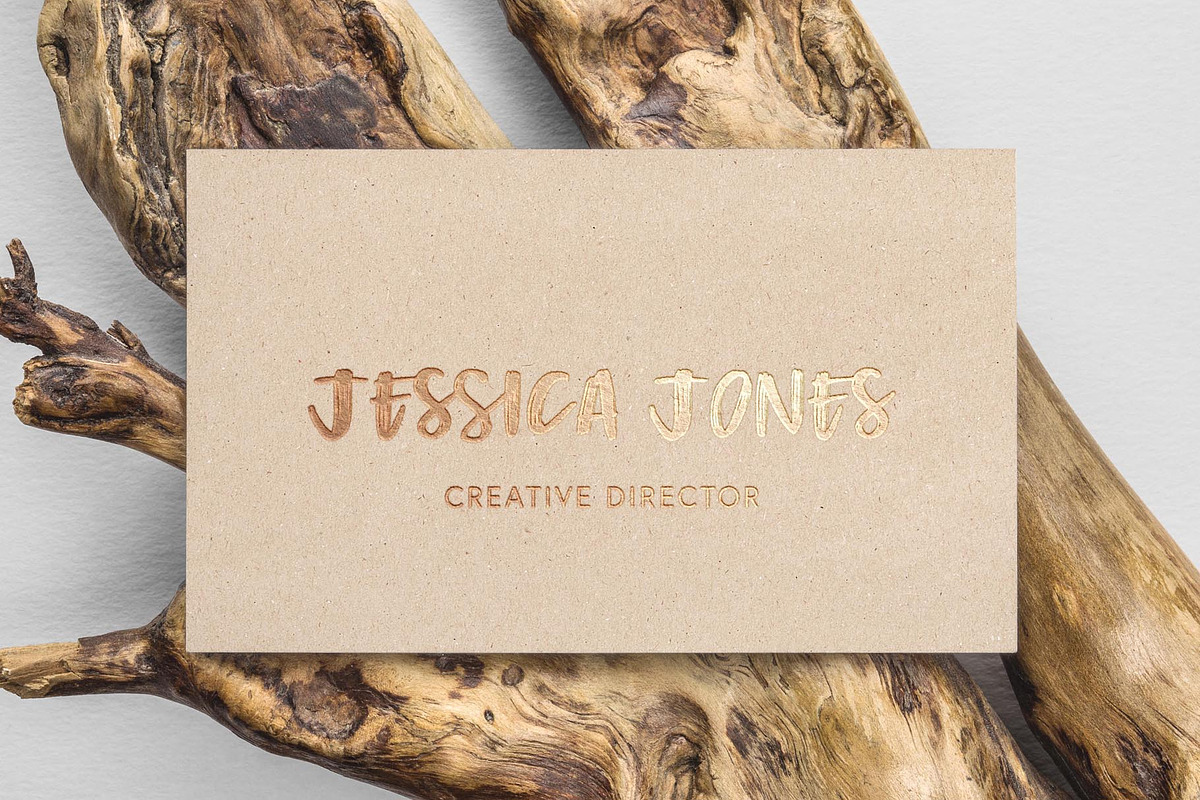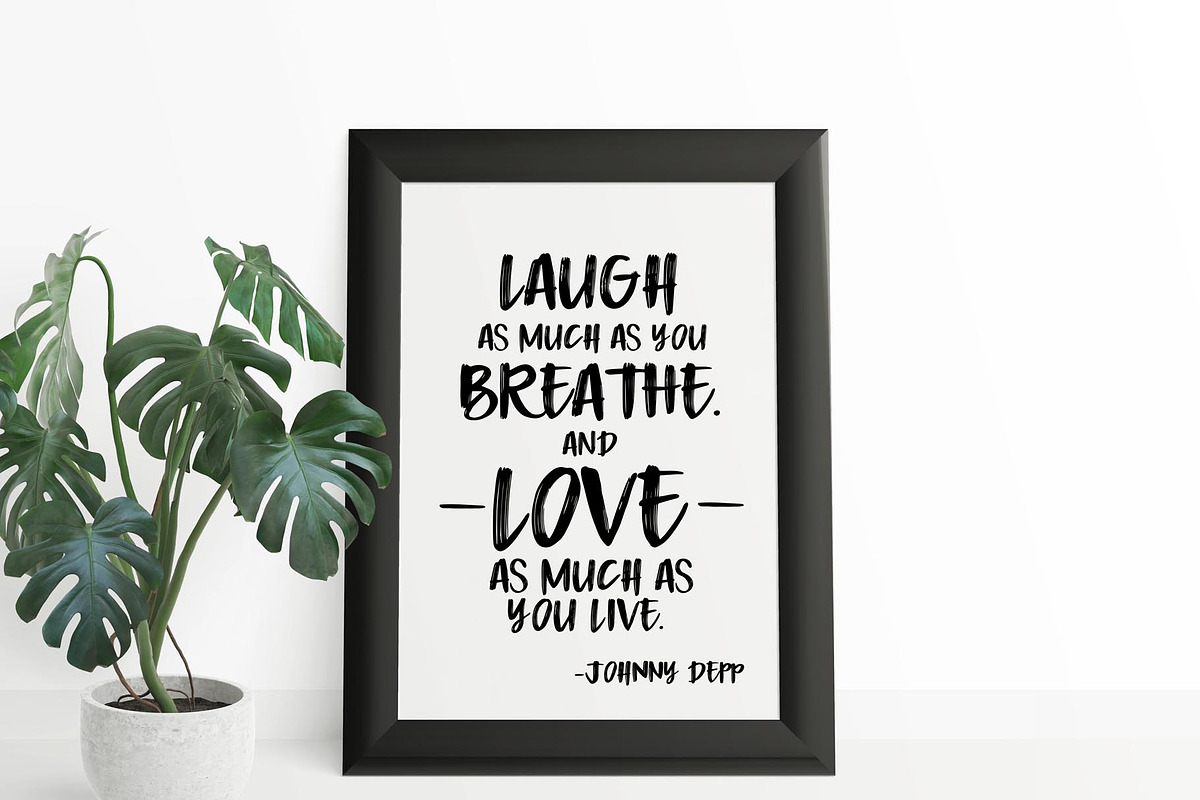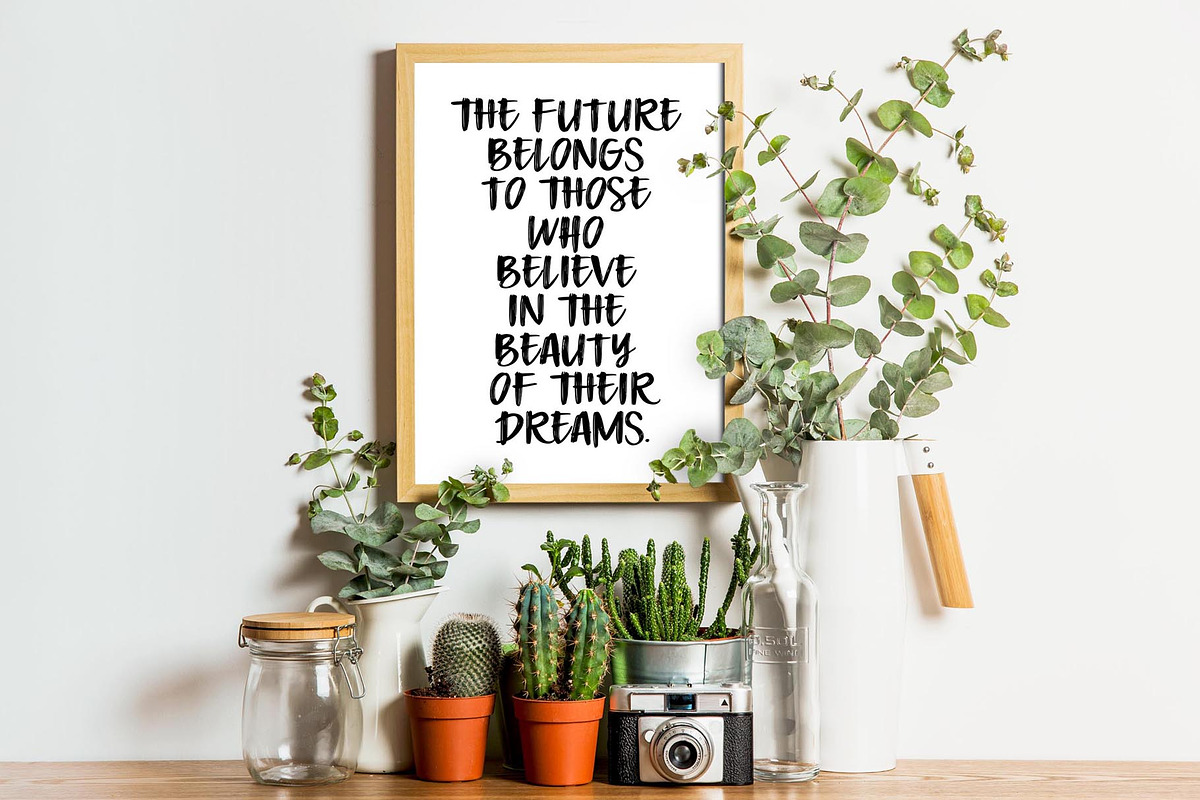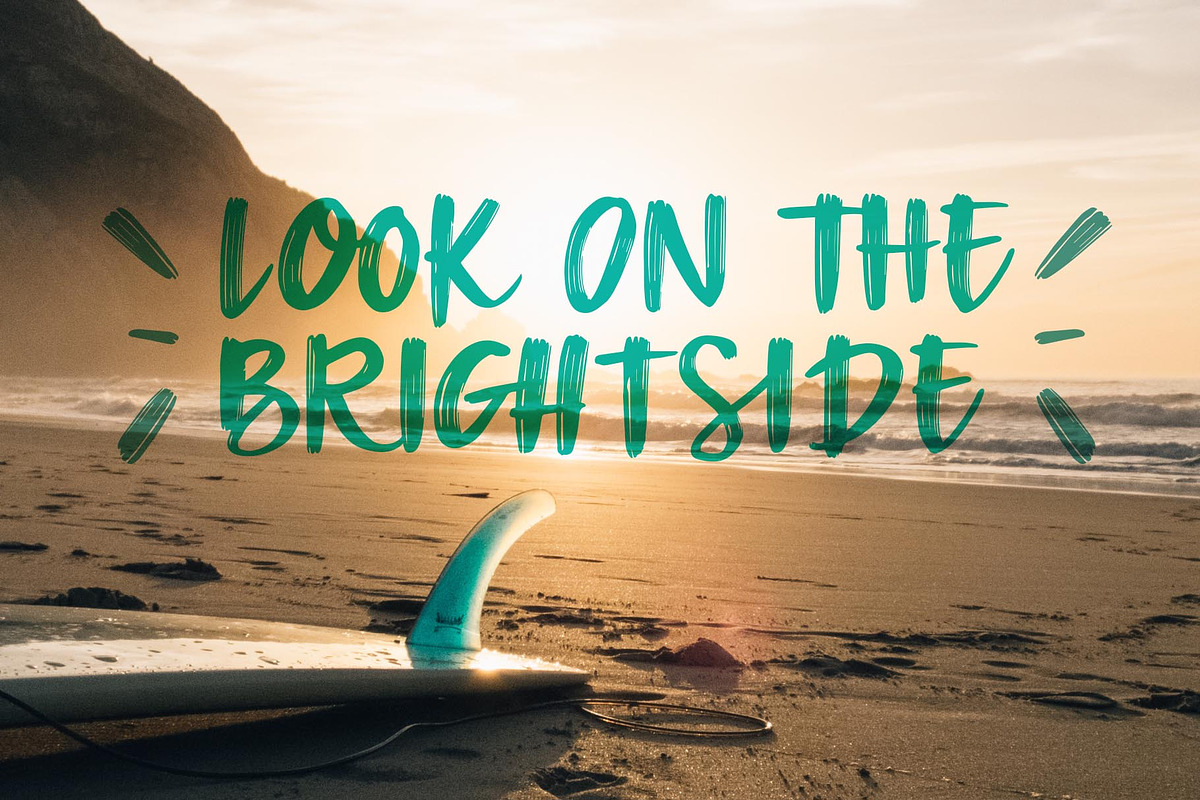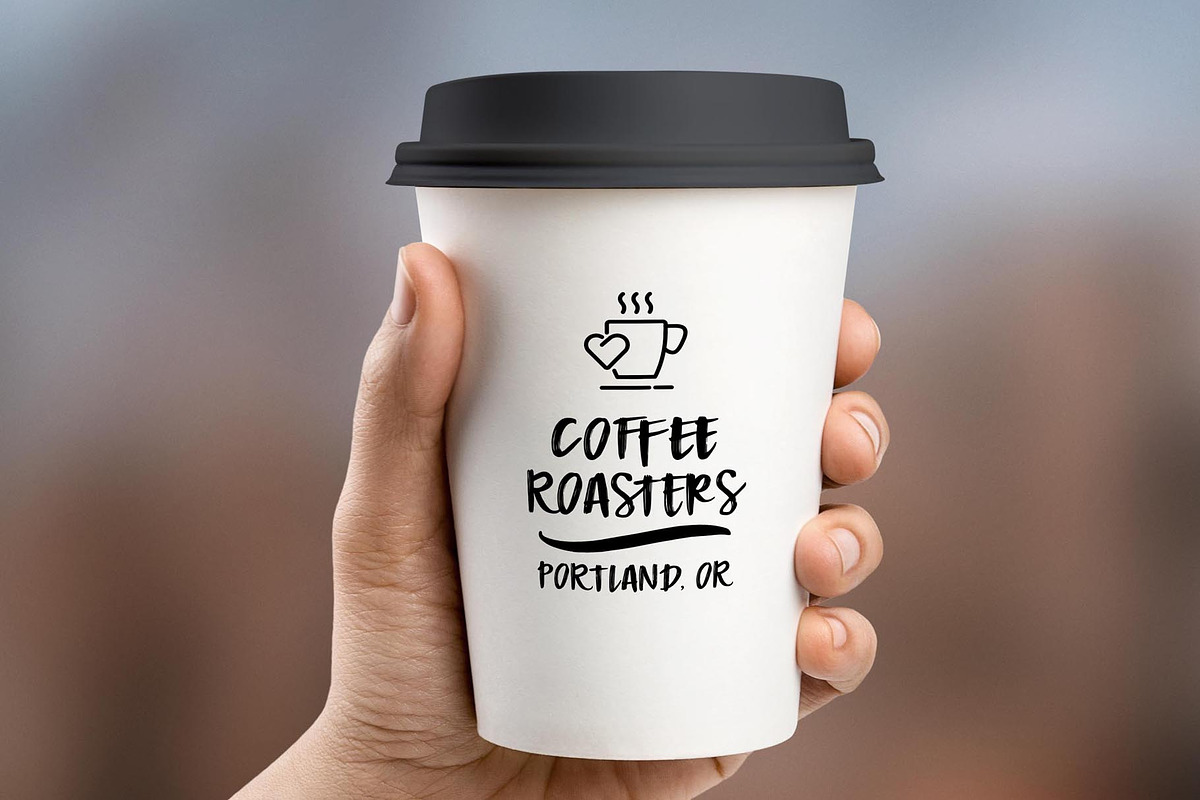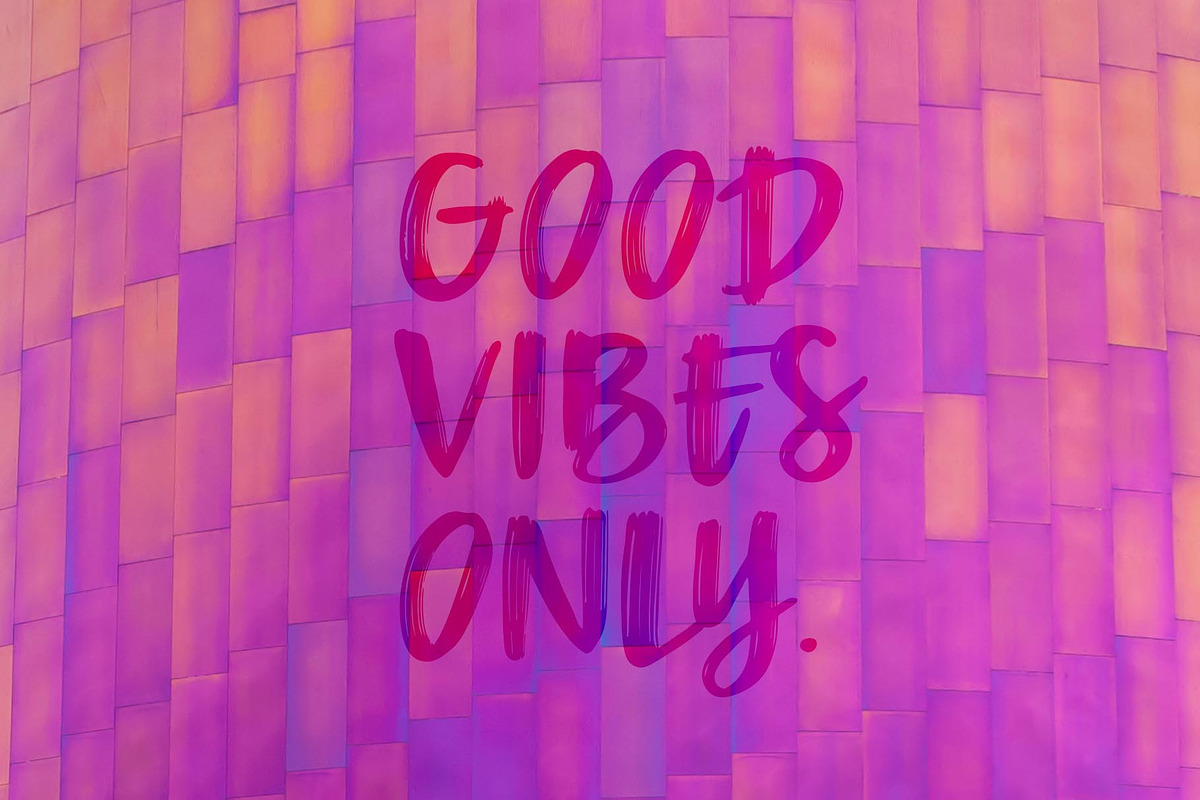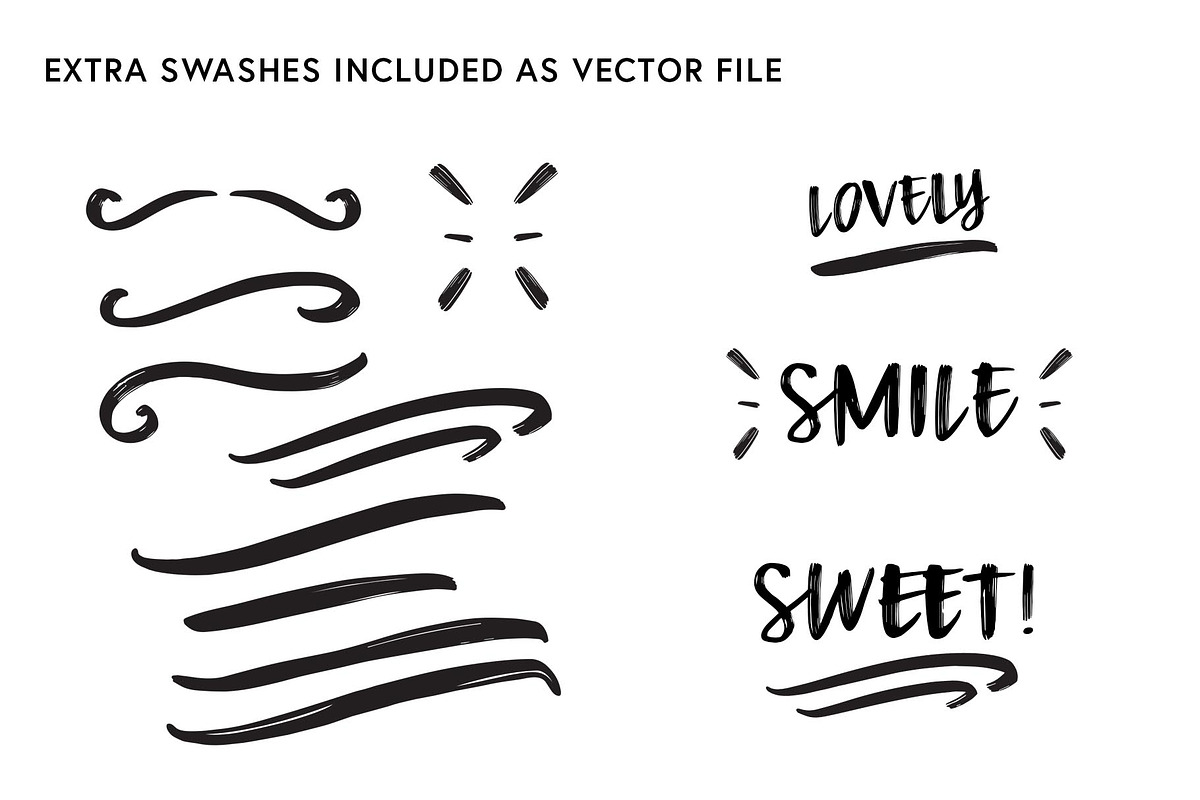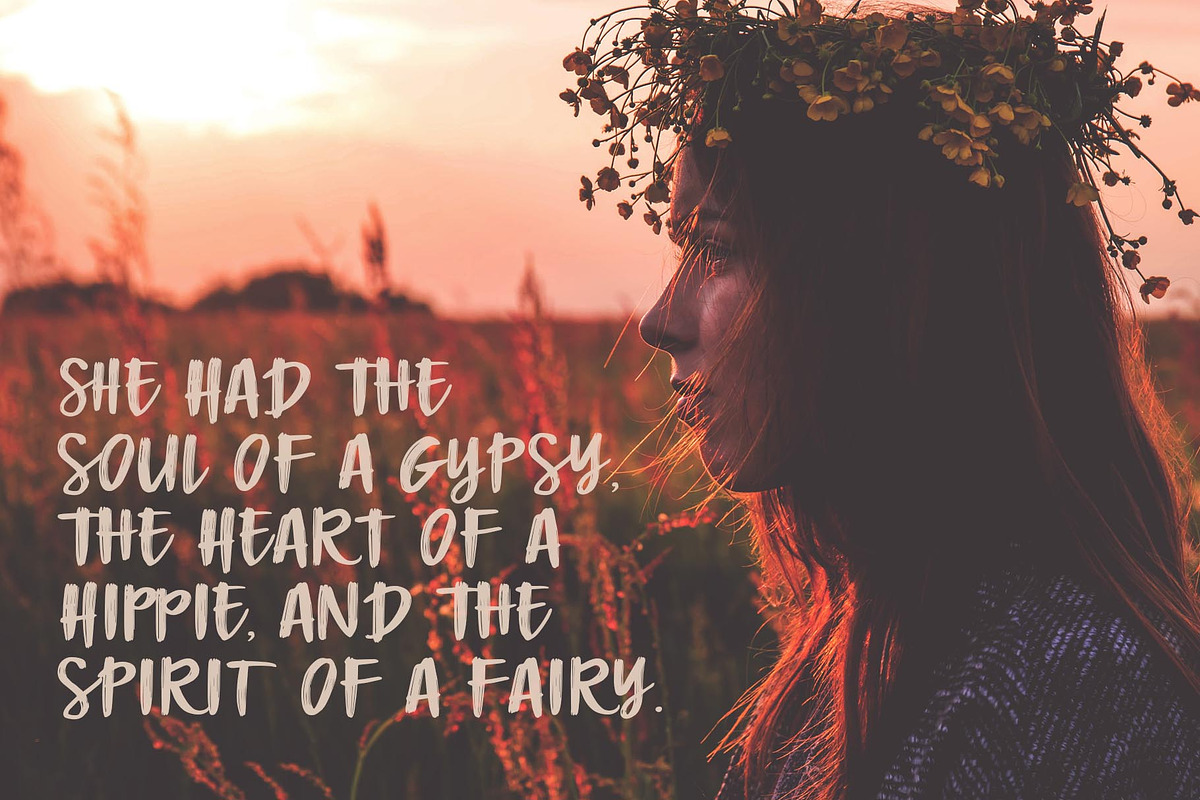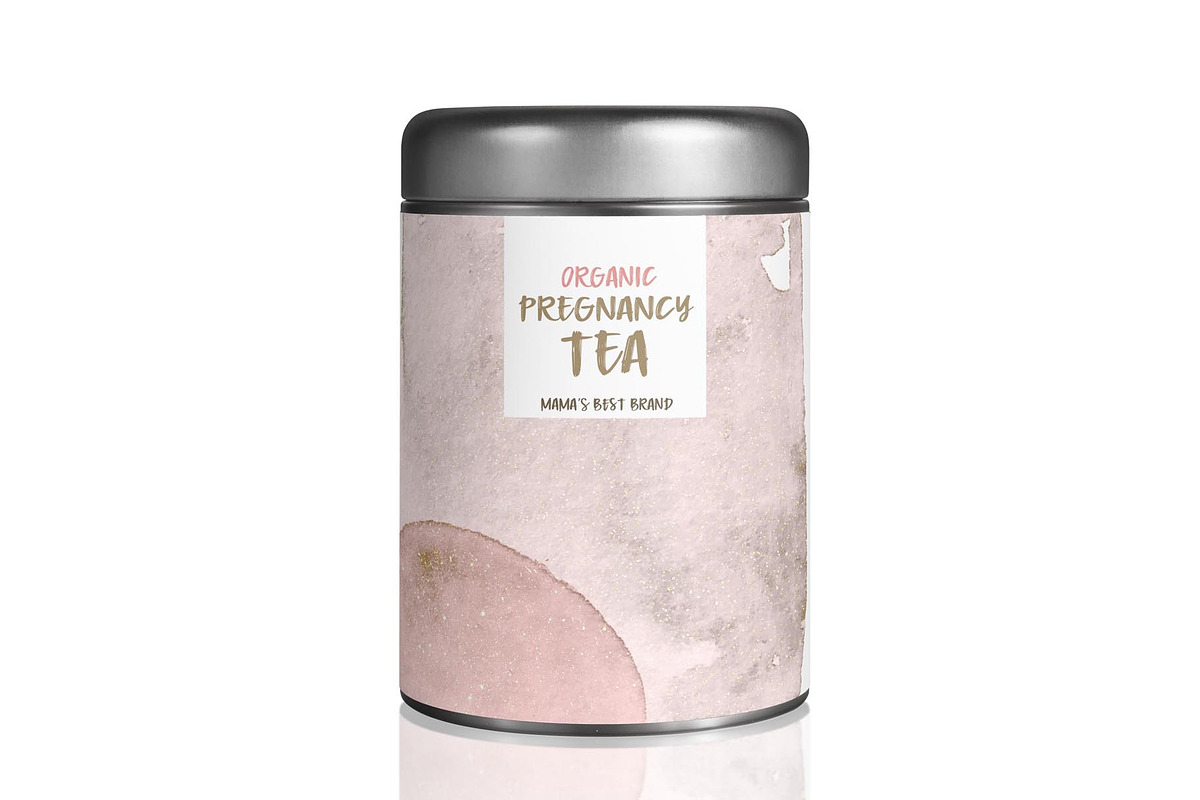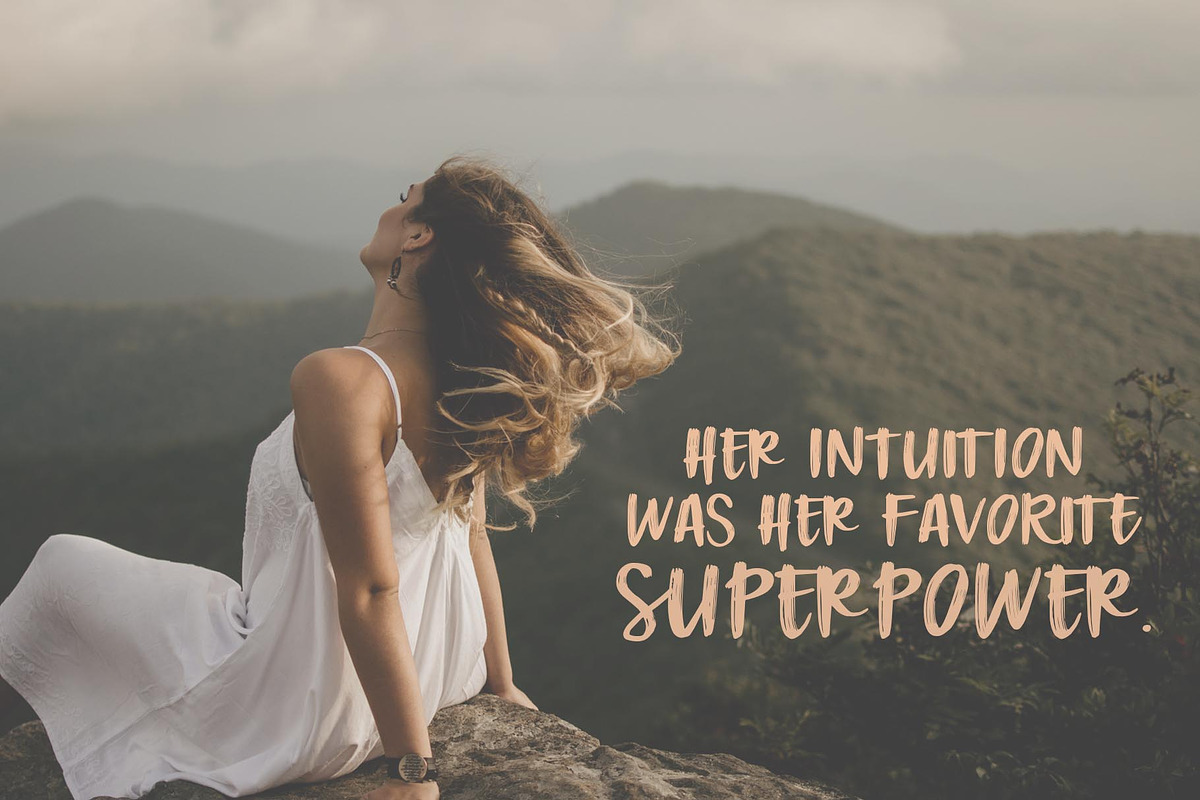
Boho Babe Font
Introducing Boho Babe! Font and Extras
Uppercase, handwritten brush font to use on a wide variety of projects!
Boho Babe font is a casual uppercase font perfect to use on blogs, websites, posters, business cards, packaging, branding projects, social media, printed projects and so much more!
Boho Babe is an open type font that comes with stylistic alternates, ligatures, end forms, numbers and symbols, and comes equipped with multilingual support!
Included are a set of vector swashes to use on branding projects, adobe illustrator file. Lowercase programmed as uppercase fonts.